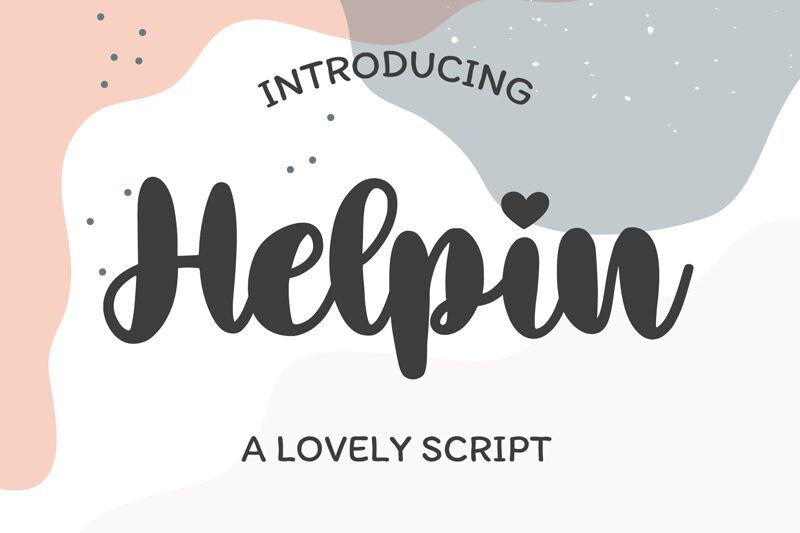
Helpin, the extraordinary creation from Bearytype, is a smooth brush font that oozes sophistication and class. With an extra-bold weight, this font is perfect for creating eye-catching headlines or attention-grabbing titles. The smooth brush style of Helpin adds an elegant touch to any project it is used in, making it ideal for branding materials, invitations, posters, and logos. It can also be used for book covers or editorial design projects where a bold statement needs to be made. Transform your designs with the impressive capabilities of Helpin and let your creativity soar!